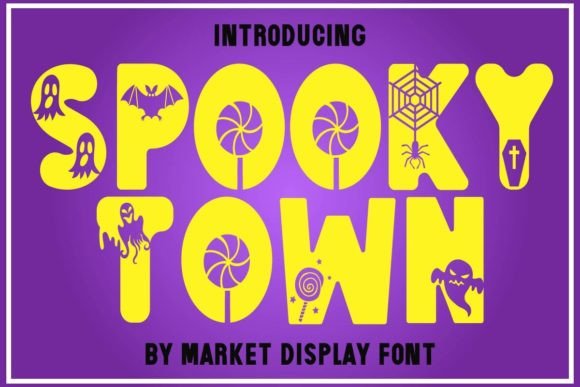
Journey into the depths of spooky town, where fonts take on a life of their own. Our master font crafter, Phongsakon Phonkhammak, has conjured up a spine-tingling collection of decorative fonts, each adorned with haunting ornaments of monsters and ghosts.
Meet Spooky Town Font, where the eerie and the elegant intertwine. This font will cast a spell on your Halloween-themed projects, bringing a touch of the supernatural to your designs. Its distinct and quirky character will make your words leap off the page and send shivers down the spines of your readers.
Picture your Halloween invitations, adorned with the haunting beauty of Spooky Town Font. Watch as your guests gasp in delight and anticipation, eager to unravel the mysteries that lurk within. Let your flyers and posters dance with the macabre, as this font weaves a web of intrigue that will leave a lasting impression.
But Spooky Town Font is not just confined to the realm of Halloween. Its versatility knows no bounds. Embrace the spirit of the supernatural year-round, using this font to add a touch of whimsy and wonder to your everyday designs. From spooky greeting cards to mysterious invitations, let Spooky Town Font be your trusted companion, ready to add a touch of the otherworldly to your creations.
So, if you dare to venture into the unknown, let Spooky Town Font be your guide. Its haunting beauty and endless possibilities await, ready to transform your words into a symphony of the supernatural. Embrace the magic, and watch your designs come alive with the captivating charm of Spooky Town Font.